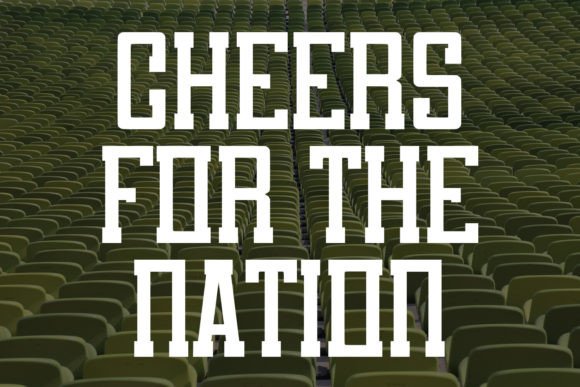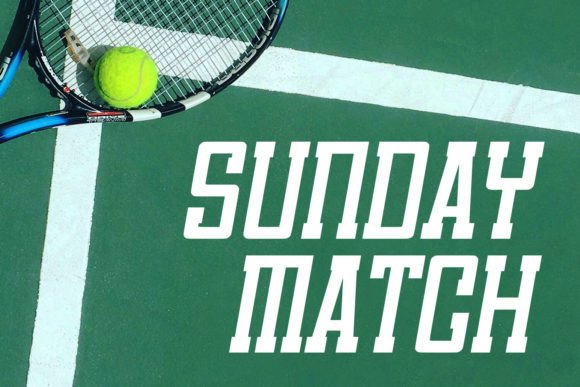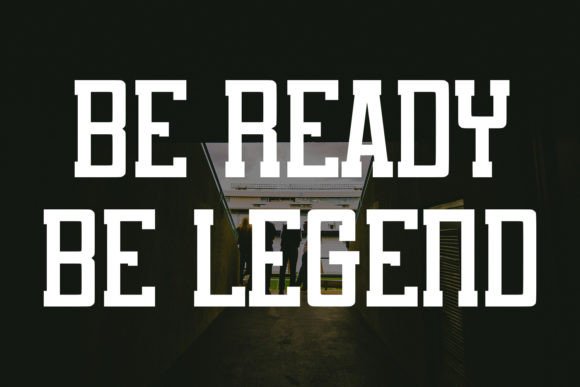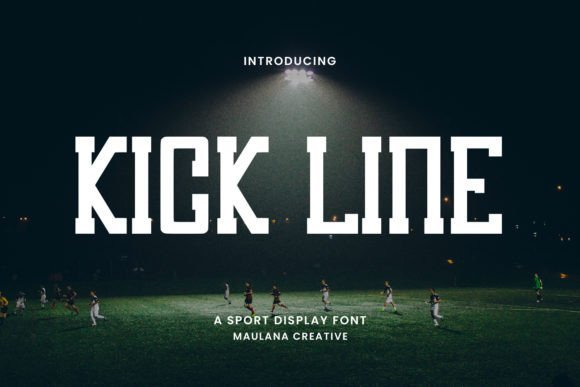
Introduction to Kick Line Font
Kick Line is a sporty and bold display font designed to stand out.
With its strong lines and energetic style, it’s perfect for creating eye-catching headlines, posters, and team logos It captures the excitement and dynamism of sports, making your text look powerful and active.